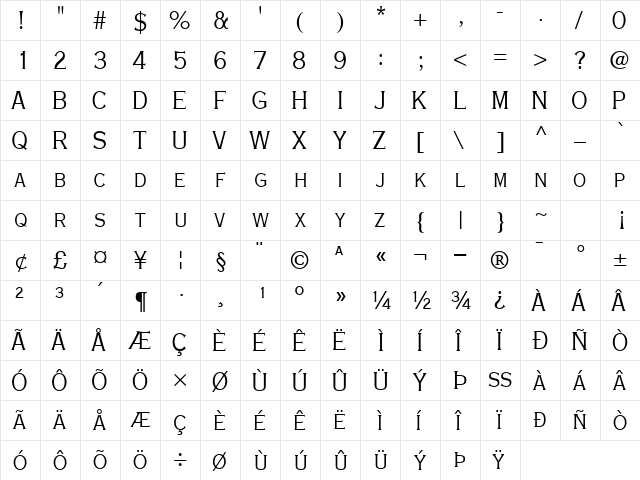
CopperplateLightCondSCapsSSK Regular Font Preview
Design Context for CopperplateLightCondSCapsSSK Typeface
CopperplateLightCondSCapsSSK offers clean, dependable letterforms without strong stylistic allegiance, making it a practical choice for designers who need flexibility. Its slender proportions lend an understated elegance to any composition. The condensed width makes it efficient for tight spaces without sacrificing legibility.